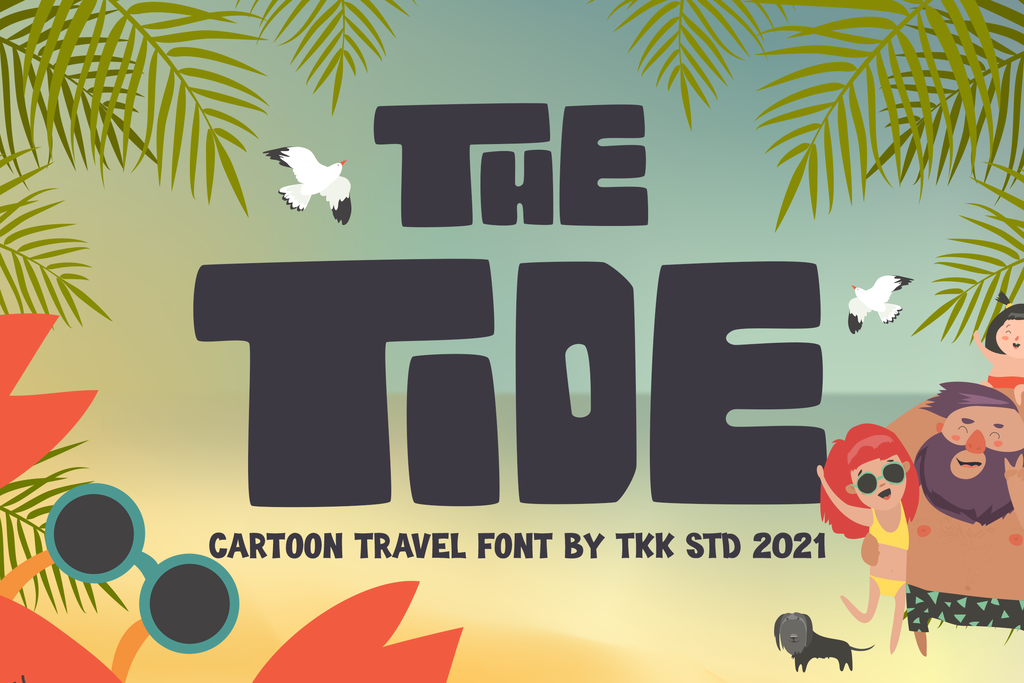
The Tide block font has a wave sound, the wind blows, the rise of the tide, and the surfer slicing through the riff. The energy of rebel and their carefree feeling brings The Tide as the main reason to be put on the poster.
Suit perfectly for Surf and Beach theme games, poster, movie title, fast food menu, magazine, youtube covers, youtube thumbnails, social media page covers and so on...